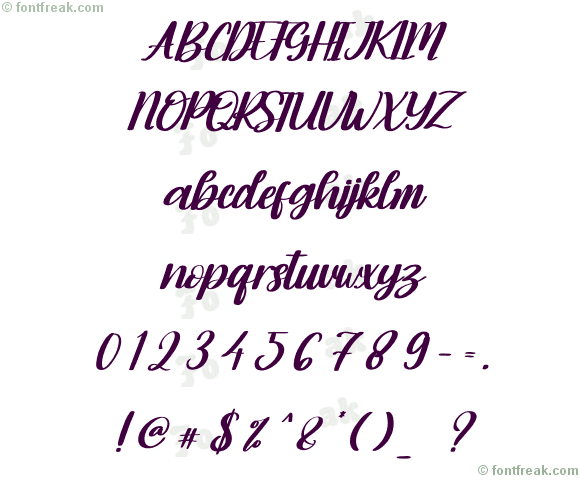
Moonday Italic
Moonday
Moonday Italic — Character Map
Moonday — Character Map
About Moonday Italic
Moonday Italic is a captivating script typeface designed by Kong Font, embodying a blend of elegance and modernity that makes it a versatile choice for various design projects. As a handwritten font, it features fluid strokes and an organic flow, giving it a personal touch that is both inviting and stylish. The stroke weight exhibits a subtle contrast, adding depth and character to the letters, while the spacing is carefully balanced to ensure readability without sacrificing its artistic flair. The decorative elements, such as the playful curves and swashes, further enhance its charm, making it visually appealing.
This font is particularly well-suited for wedding invitations, where its graceful appearance can evoke romance and sophistication. Additionally, it works beautifully for movie posters, adding an artistic flair that captures attention and conveys a sense of creativity. Restaurant menus can also benefit from Moonday Italic, as its elegant style complements fine dining experiences, enticing customers with its aesthetic appeal. Small business owners looking to establish a unique brand identity will find this font an excellent choice for logos, packaging, and promotional materials, allowing their products to stand out in a competitive market.
Targeting graphic designers, content creators, and entrepreneurs alike, Moonday Italic is a versatile tool in the creative arsenal. Its freeware license further enhances its accessibility, allowing users to explore its potential without financial constraints. The Moonday Italic font free download option makes it easy for individuals and businesses to incorporate this stunning typeface into their projects. Ultimately, what sets Moonday Italic apart is its perfect blend of elegance and versatility, making it a standout choice for a wide range of creative applications.